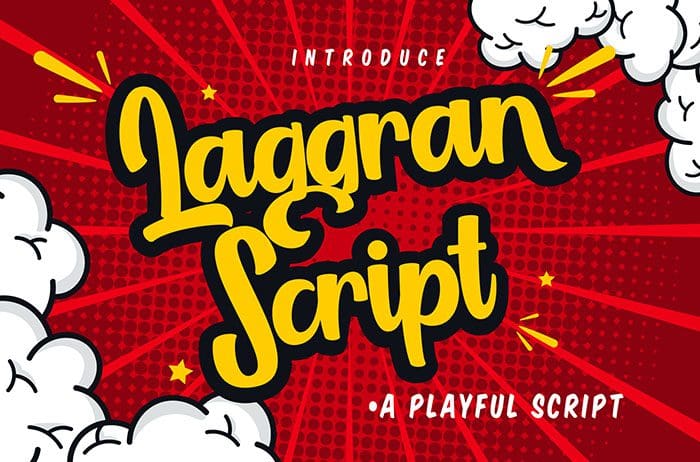
Laggran is a playful script font. This font is perfect for creating promotional content and marketing graphics that lift the creative aspects of the design. Thanks to Vunira Studio for sharing this font. Take a look at this portfolio for more of his stunning fonts.